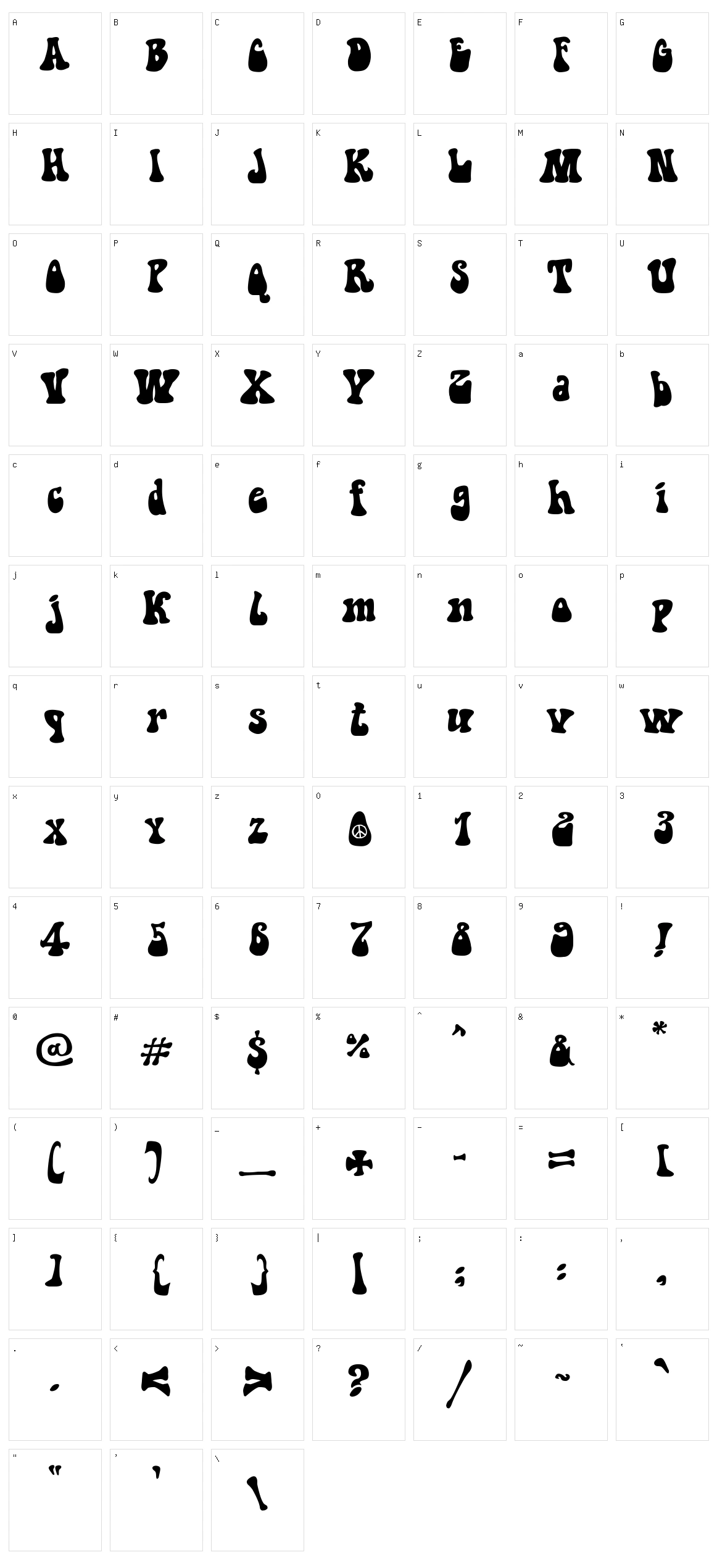
The free font Hippie Movement is carefully designed by Galdino Otten Fonts, showcasing a thoughtful balance of creativity and usability and falls under the Groovy font style. When you download the ZIP file, it contains only 128.71 KB of font files, making it lightweight and quick to download. Please review the license details below to understand permitted usage and distribution rights. If license information is not available, we recommend using this font for personal projects only or contacting the author directly for commercial usage permissions.